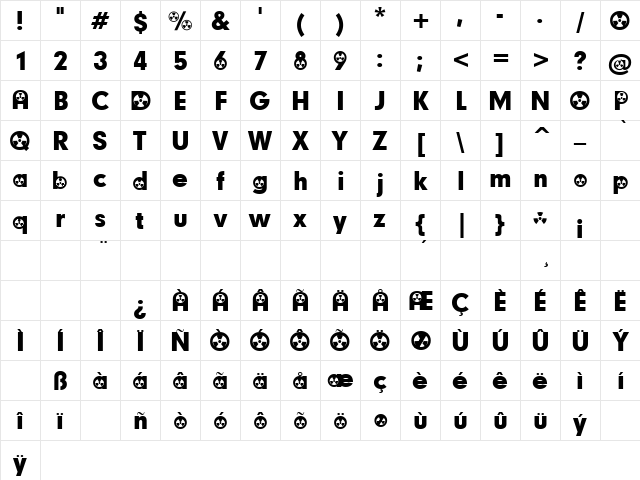
Complete Radiation Participants Regular glyph index. Displaying only characters natively supported by Radiation Participants Regular font.
Radiation Participants is a composed and adaptable typeface that performs quietly and consistently across a wide range of design contexts.